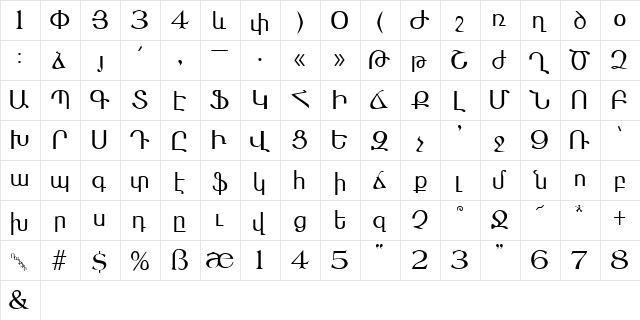
Masis Normal Font Preview
Masis Normal
Masis Normal Font Details
Design Context for Masis Typeface
Masis offers clean, dependable letterforms without strong stylistic allegiance, making it a practical choice for designers who need flexibility.
Pro Tip: Pair Masis with a font of contrasting weight or personality to build a more expressive typographic hierarchy.